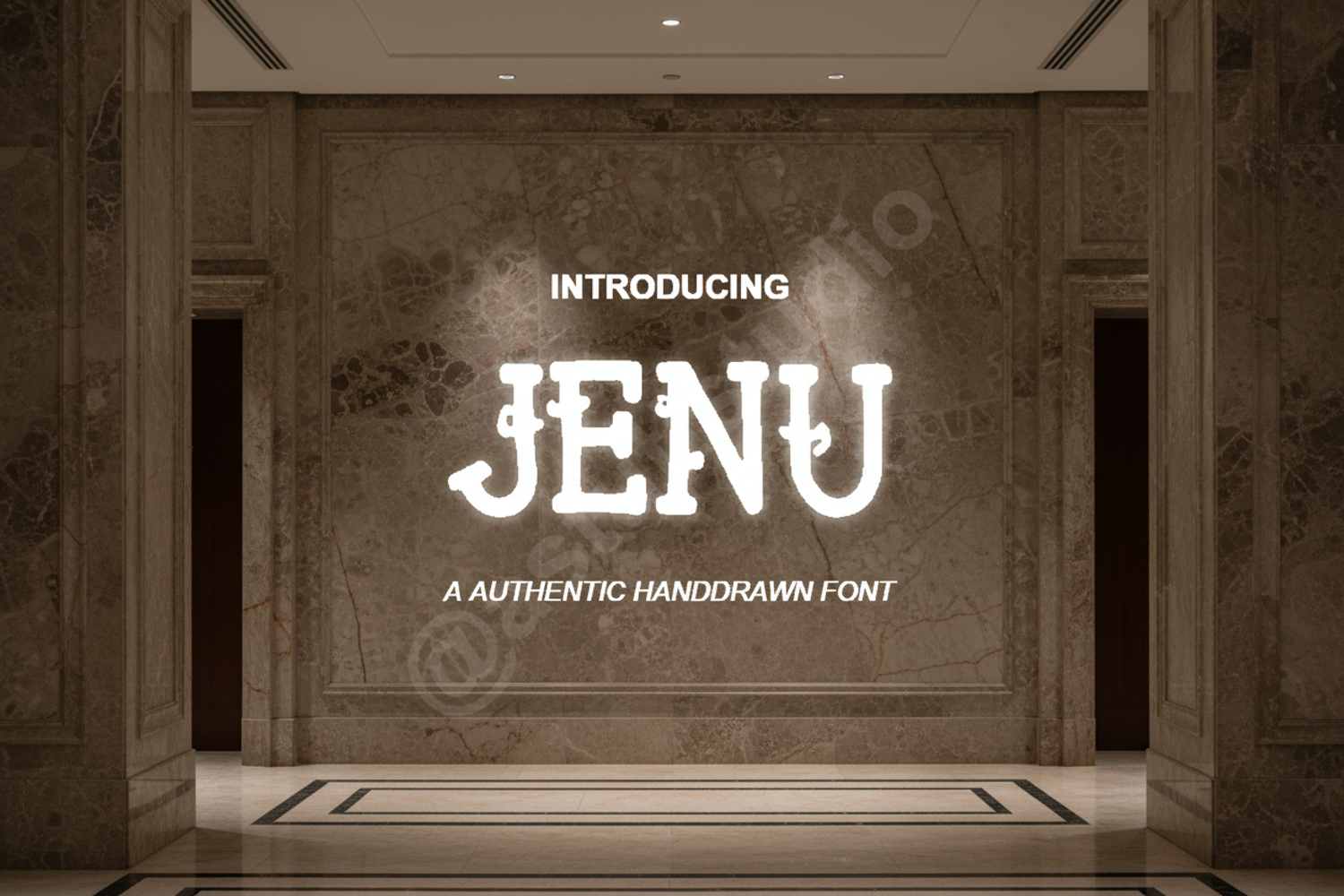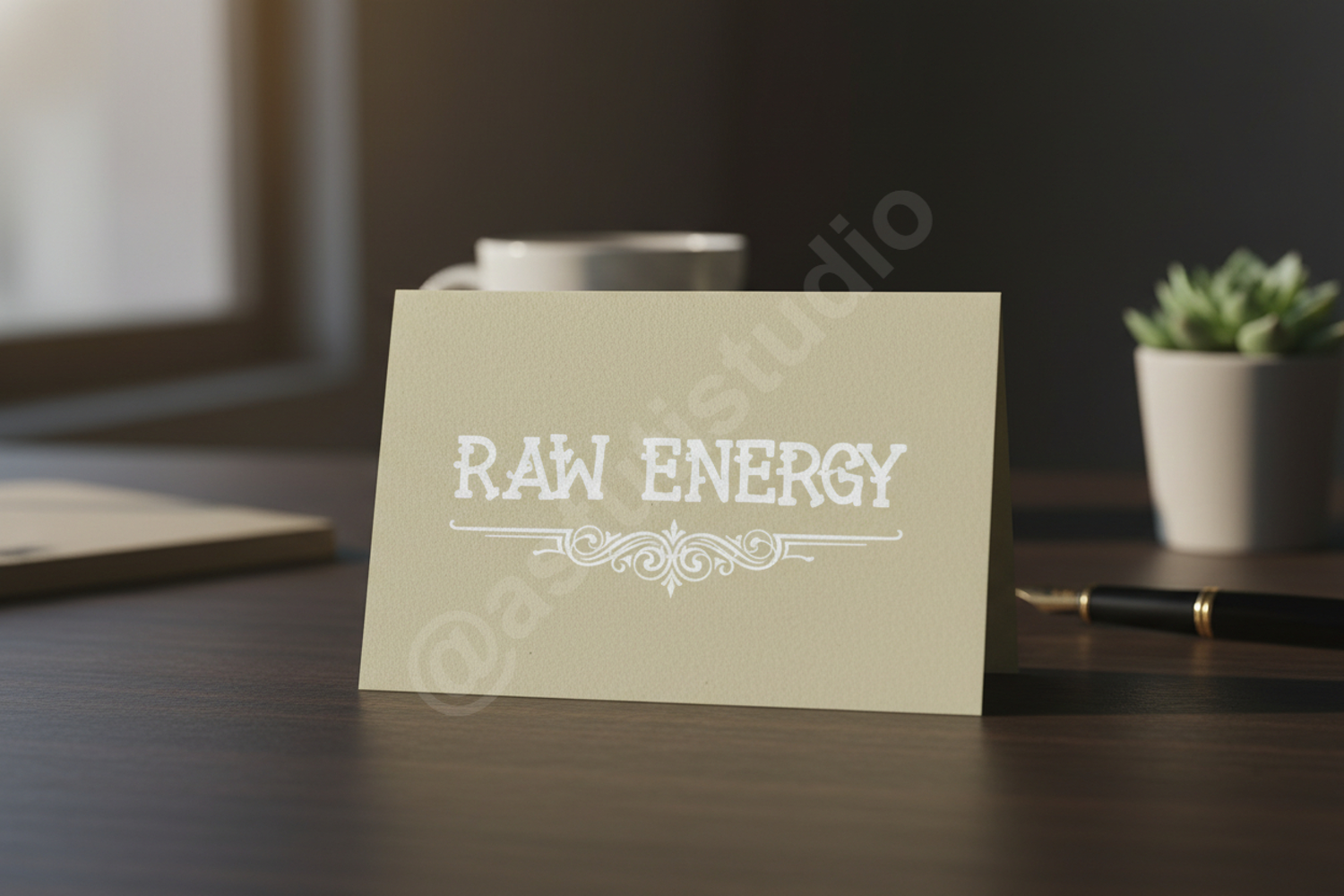
Jenu - Elegant Modern Sans Serif Typeface
Jenu
Elevate your creative projects with Jenu, a premium sans-serif typeface designed with precision and modern aesthetics in mind. Jenu strikes the perfect balance between professional structure and contemporary flair, making it an essential addition to any designer's toolkit. Whether you are crafting a minimalist brand identity or a high-impact editorial layout, Jenu delivers clarity and sophistication in every character.
- Full Character Set including Uppercase, Lowercase, Numbers, and Punctuation
- Multilingual Support for global accessibility
- Branding and Visual Identity: Create memorable logos and cohesive brand guidelines.
- Wedding Stationery: Perfect for modern, clean invitation suites and RSVP cards.
- Social Media Graphics: Enhance your Instagram, Pinterest, and TikTok layouts with readable, stylish text.
- Editorial Design: Ideal for magazine headers, book covers, and digital publications.
- Web Design: Optimized for legibility across all digital platforms and devices.